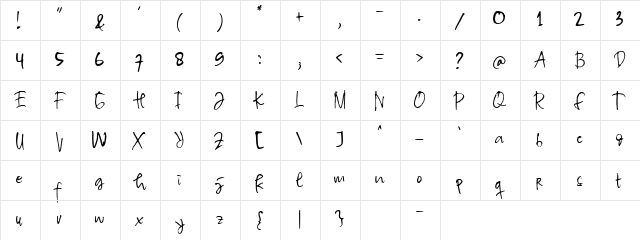
Tracer Script (Demo) Regular
| Designer | Omotu 2018 |
Design Context for Tracer Script (Demo) Typeface
Tracer Script (Demo) brings a calligraphic fluidity to the page — its connecting strokes and expressive curves give it an unmistakably human quality.